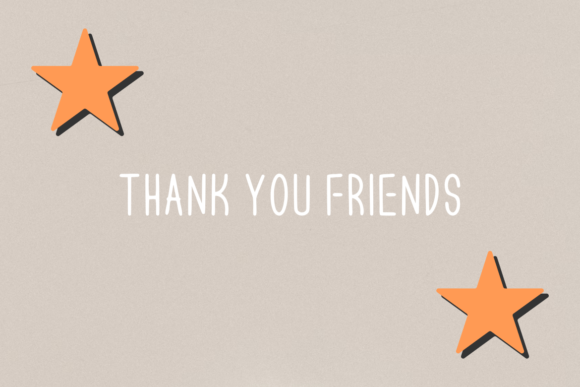
Unlocking the Magic of Modern Design with EternalStar Font
Remember the thrill of creating something from scratch, watching your ideas come to life in a swirl of color and texture? For designers, that rush is what drives us to push the boundaries of creativity every day. And sometimes, all it takes is the right tool to unlock that magic.
Enter EternalStar Font – Modern Font, a bold and authentic display font that’s ready to elevate your branding projects. Whether you’re crafting a logo, designing a t-shirt, or building a brand identity for an esports team, this font is the perfect companion. Its versatility shines in a wide range of contexts, making it an invaluable asset for designers who crave authenticity and style.
Eternalstar Font Key Features
- Font Family: Eternalstar is a beautiful, modern sans-serif font family designed for digital and print use. It is available in various font styles, including Regular, Bold, Italic, and Bold Italic.
- Font Size: Eternalstar is designed to be highly legible at various font sizes, from 8pt to 24pt, making it suitable for body text, headings, and titles.
- Resolution: Eternalstar is optimized for high-resolution displays, including Retina and 4K screens, ensuring crisp and clear typography at high pixel densities.
- Unique Characteristics: Eternalstar features a unique blend of geometric and organic shapes, resulting in a modern and sophisticated aesthetic that is both elegant and versatile.
- Language Support: Eternalstar supports a wide range of languages, including Latin, Cyrillic, Greek, and many others, making it a great choice for global branding and communication.
Eternalstar Font Review
I recently had the chance to work with the Eternalstar Font, and I must say, it’s a unique and captivating typeface. ✨ The first thing that caught my attention was its elegant and celestial design, reminiscent of starry night skies. It’s perfect for projects that require a touch of whimsy and sophistication.
Here are some things that work well with the Eternalstar Font:
- ✨ Unique design: The font’s intricate details and flowing lines make it stand out from more traditional typefaces.
- ✨ Versatility: Eternalstar Font can be used for a variety of projects, from headers and titles to body text and even logos.
- ✨ High-quality rendering: The font looks sharp and clear, even at smaller sizes.
- ⚠️ Limited character set: The font only includes basic Latin characters, which may be a problem for projects that require non-English text.
- ⚠️ Not ideal for small text: While the font looks great at larger sizes, it can become difficult to read at smaller sizes due to its intricate design.
Overall, I think the Eternalstar Font is a great choice for projects that require a touch of magic and elegance. However, it’s essential to weigh its unique design against its limitations before making a decision.
For optimal results, use the Eternalstar Font in designs that require a luxurious and elegant feel. Some common use cases include:
- Luxury brand logos and marketing materials.
- High-end fashion and beauty product packaging.
Compared to Eternalstar Font, Playfair Display has a more ornate and intricate design, making it suitable for projects that require a touch of luxury and sophistication. While Eternalstar Font has a more minimalist and modern feel, Playfair Display is better suited for traditional and classic designs.